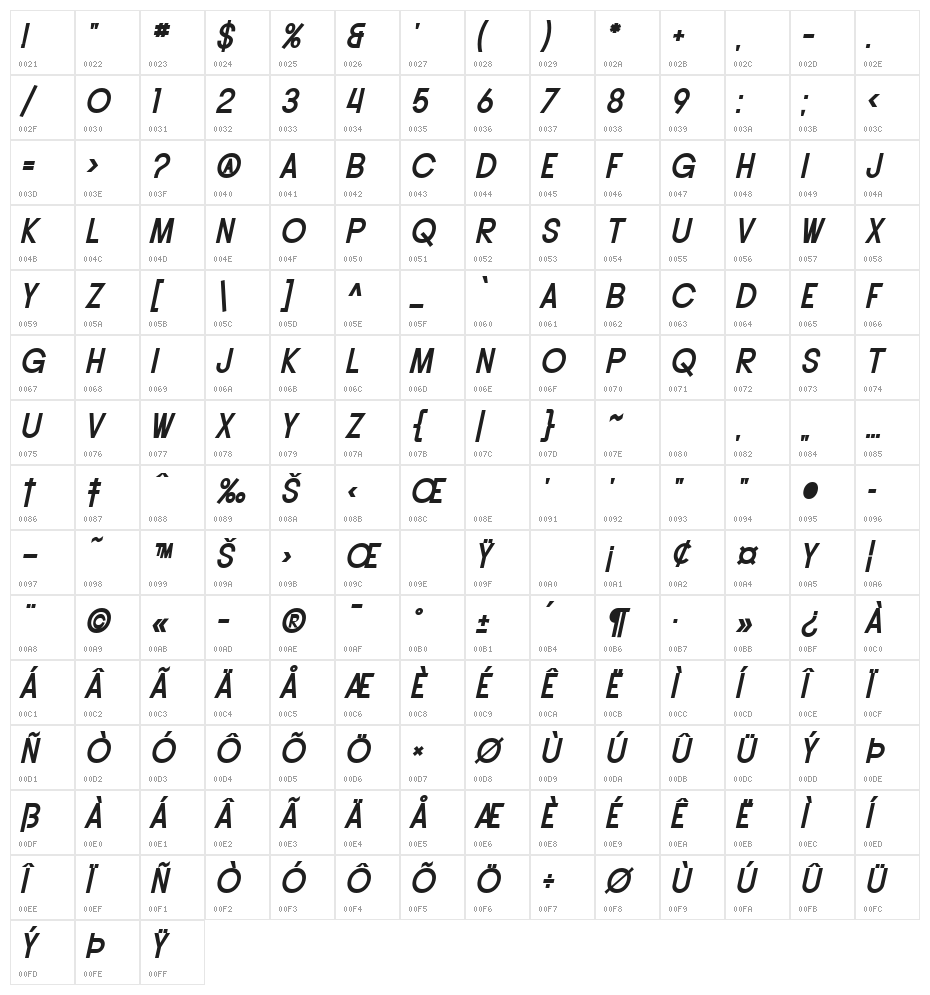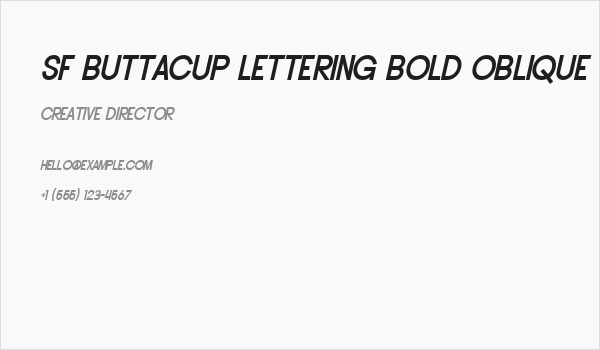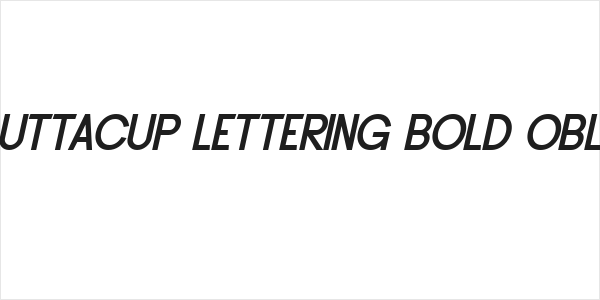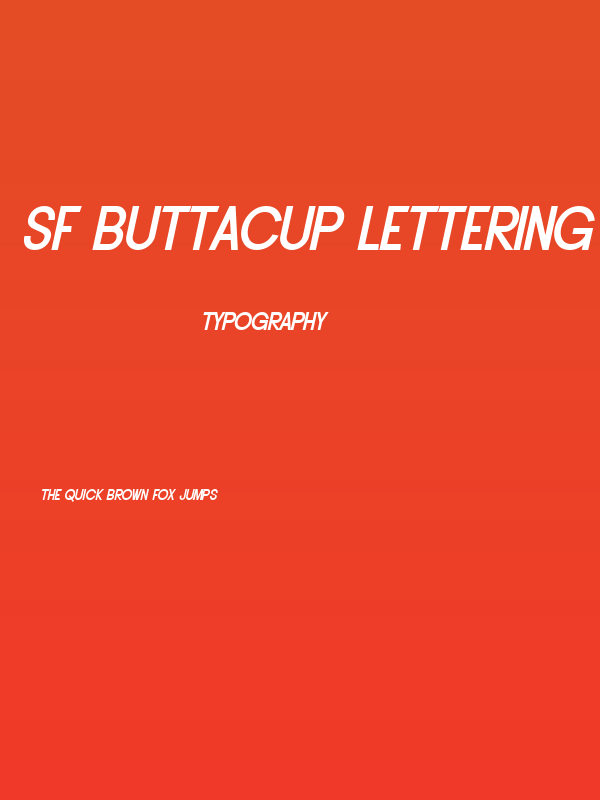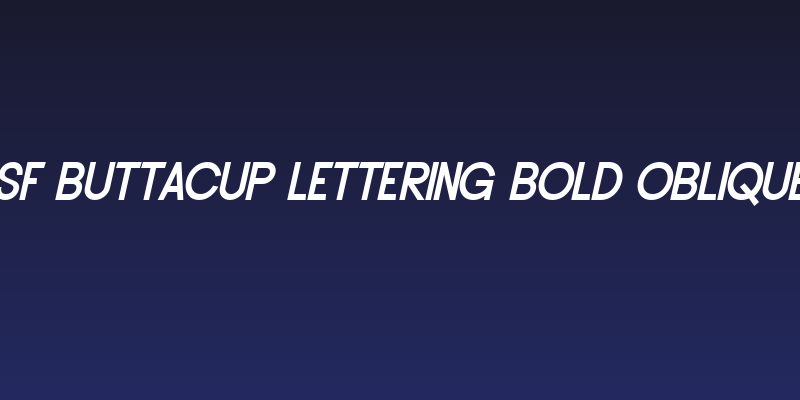
SF Buttacup Lettering Bold Oblique Font
SF Buttacup Lettering Bold Oblique Description
This font features a bold and oblique style with a strong, dynamic presence. The characters are slanted, giving a sense of motion and energy. The strokes are thick and consistent, contributing to its bold appearance. The font maintains a modern and sleek aesthetic, making it suitable for impactful designs. The uppercase and lowercase letters are well-proportioned, and the numbers are clear and easy to read. Special characters are included, enhancing its versatility for various design needs.
Proposed ProjectsIdeal for branding, advertising, posters, and headlines where a strong and energetic impression is desired.